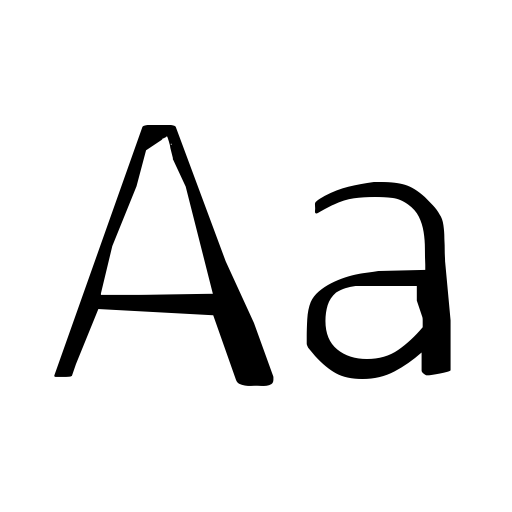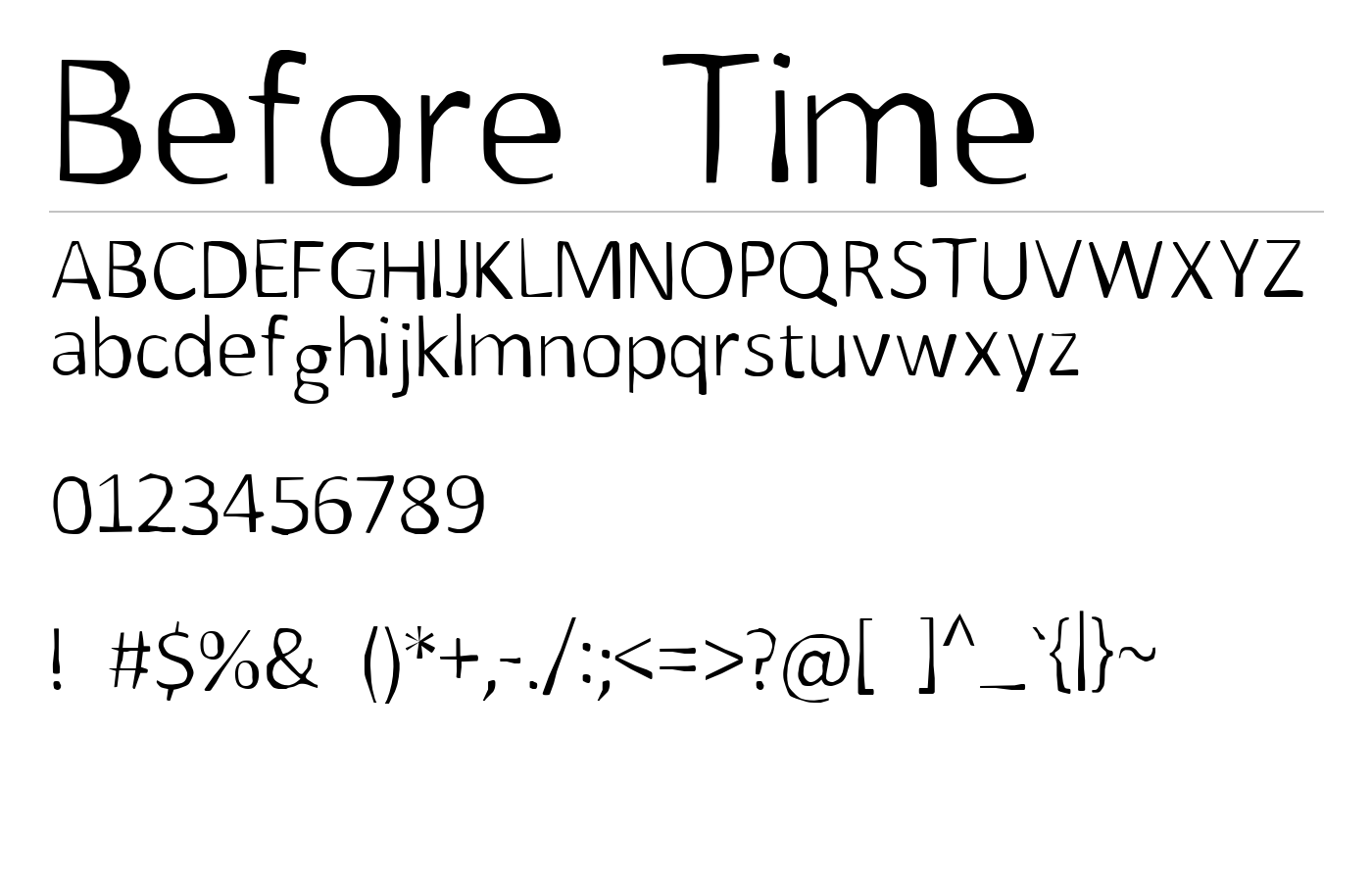
Before Time is a quirky, hand-drawn sans serif font that combines a playful, casual feel with clear readability. Its irregular, slightly wavy strokes and uneven letter shapes give it a charming, handcrafted personality perfect for creative projects, children’s content, or informal branding. This font works well in headlines, logos, and packaging where a friendly, approachable tone is desired.
Before Time Font
About Before Time Font
| Font family | Before Time Font |
| Designer | E.Marie |